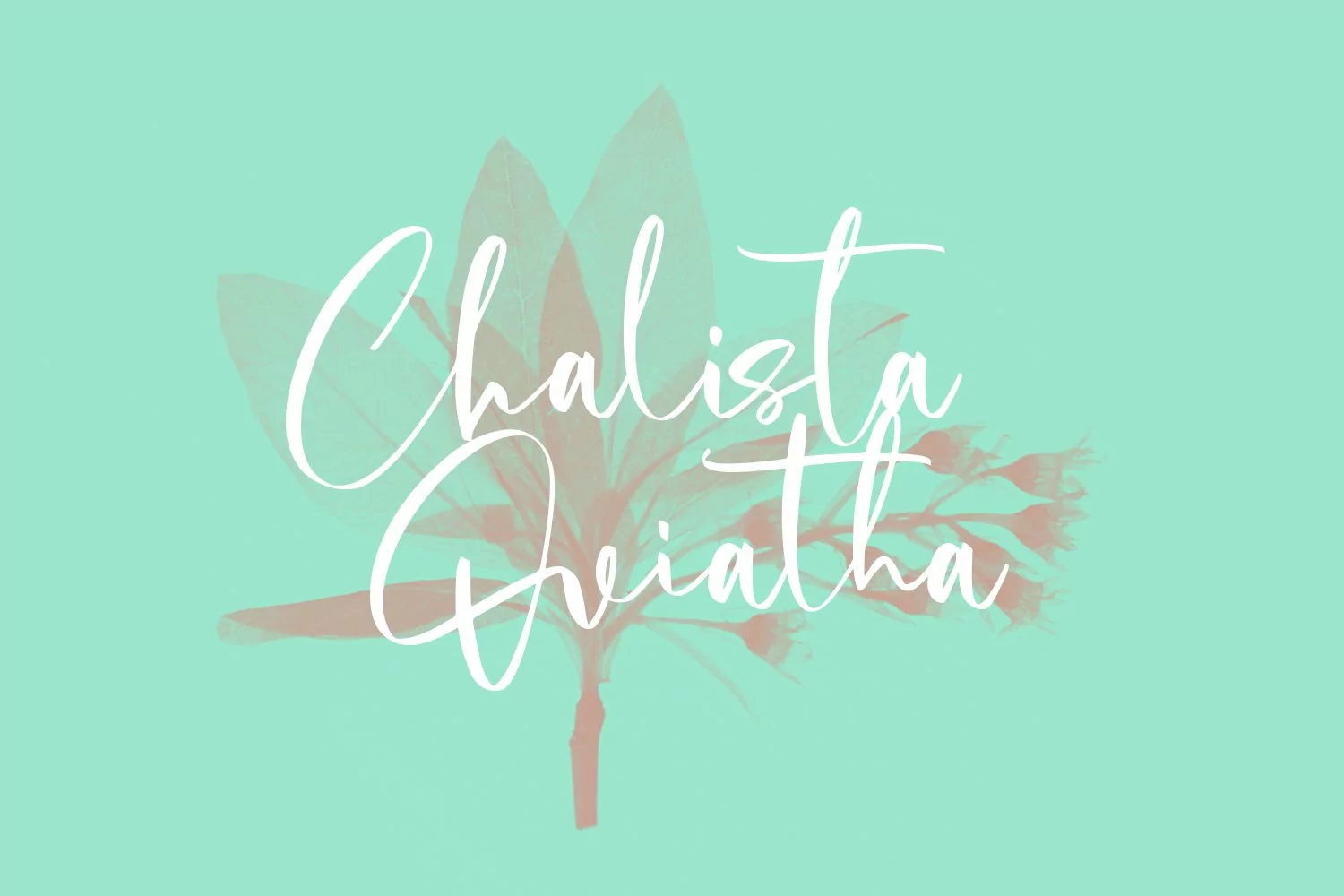
Cholasette is casual script font, with clean high contrast stroke, upright and fun character. It has Opentype features ligatures of character, To give you an extra creative work. Cholasette font support multilingual more than 100+ language. This font is good for logo design, Social media, Movie Titles, Books Titles, a short text even a long text letter and good for your secondary text font with sans or serif. Make a stunning work with Cholasette font.